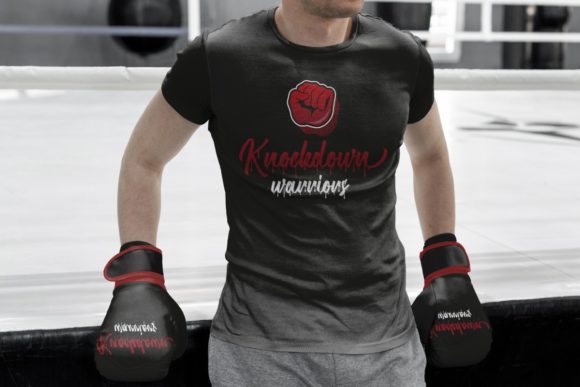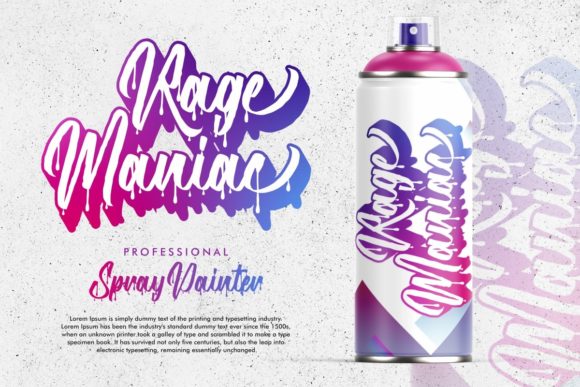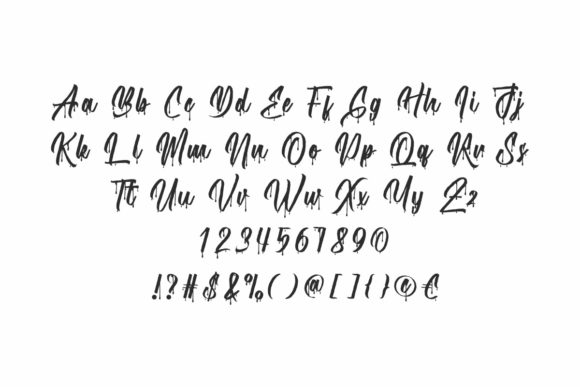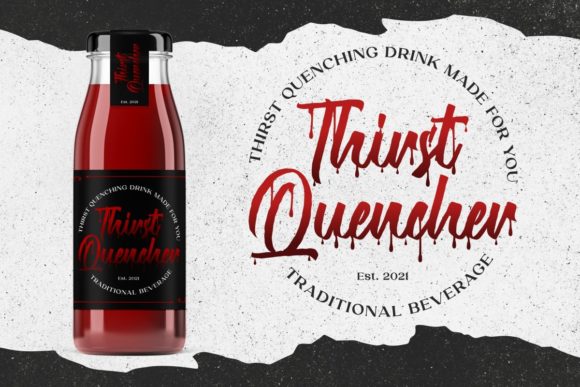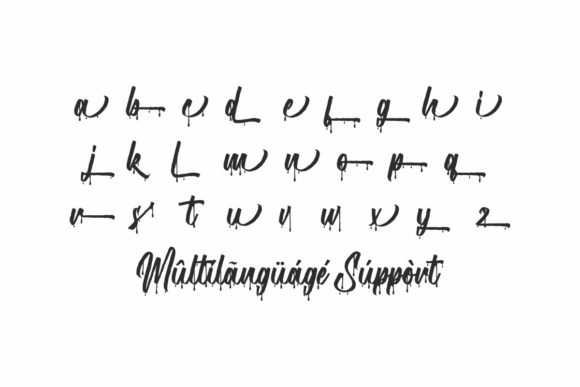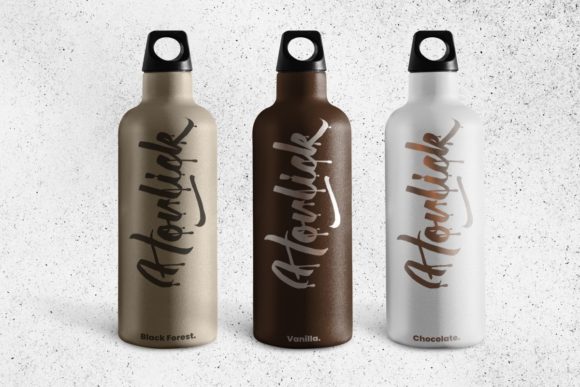
Unleash Your Creativity with Fight Hard Font: A Graffiti Masterpiece
Are you a designer or crafter looking for a unique and eye-catching font to elevate your projects? Look no further than Fight Hard Font, a graffiti and cool display font that is sure to make a statement. With its dripping brush style and spooky charm, this fancy font is perfect for a wide range of applications, from logo branding and posters to product packaging and signage.
The Unique Style of Fight Hard Font
Fight Hard Font boasts a distinctive and bold style that is sure to grab attention. Its dripping brush effect gives the letters a dynamic and edgy look, while the graffiti-inspired design adds a touch of urban flair. This font is perfect for designers who want to add a bit of attitude and personality to their work. Whether you’re creating a logo, poster, or social media graphic, Fight Hard Font is sure to make your project stand out.
What Makes Fight Hard Font So Versatile?
One of the best things about Fight Hard Font is its versatility. This font can be used for a wide range of projects, including:
- Logo Branding: Create a bold and eye-catching logo that reflects your brand’s personality and style.
- Posters: Design striking posters that grab attention and leave a lasting impression.
- Product Packaging: Add a touch of personality to your product packaging with Fight Hard Font.
- Signage: Create eye-catching signs that showcase your brand’s message and style.
- Titles: Use Fight Hard Font to add a bold and dramatic touch to your titles and headings.
Why Designers and Crafters Love Fight Hard Font
Fight Hard Font has quickly become a favorite among designers and crafters, and for good reason. Here are just a few reasons why:
- Unique Style: Fight Hard Font offers a unique and distinctive style that sets it apart from other fonts.
- Versatility: This font can be used for a wide range of projects, making it a great addition to any designer’s toolkit.
- High-Quality Design: Fight Hard Font is designed to the highest standards, ensuring that your projects look professional and polished.
If you’re looking for a font that will add a touch of personality and style to your projects, look no further than Fight Hard Font. With its unique graffiti-inspired design, dripping brush effect, and PUA encoding, this font is sure to become a favorite among designers and crafters. So why wait? Download Fight Hard Font today and unleash your creativity!